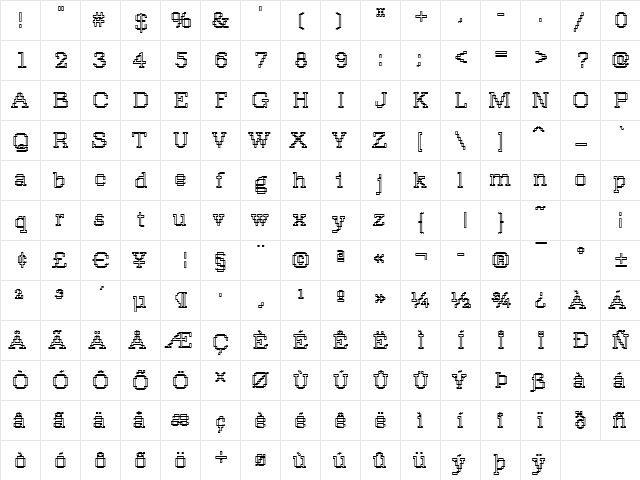
Rough13 Bold Font Preview
Rough13 Bold
Rough13 Bold Font Details
Design Context for Rough13 Typeface
Rough13 embraces imperfection — its rough, textured character adds raw authenticity to designs that want to feel lived-in and unconventional.
A strong fit for alternative music projects, graffiti-adjacent design, and anything that deliberately resists polish.
Pro Tip: Use Rough13 at larger sizes where the texture and irregularity of each letterform can be clearly seen — it loses its character at small sizes.